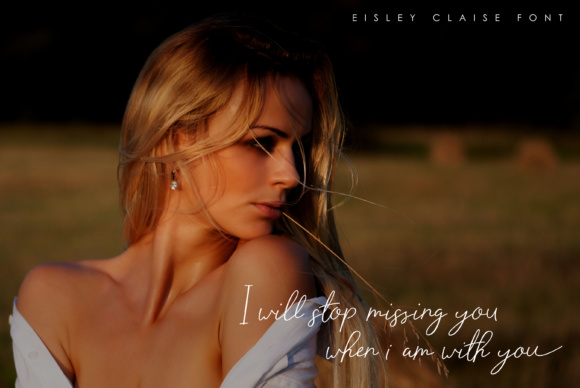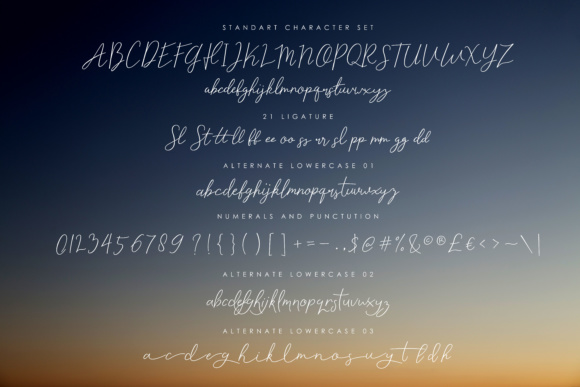
About Eisley Claise Font
Eisley Claise emerges as a beautiful and contemporary signature font, designed to add a touch of sophistication to fashionable editorials and beyond. This font possesses a free-flowing and inherently feminine appeal, making it an ideal choice for titles and headlines where elegance and style take center stage.
The beauty of Eisley Claise lies in its carefully crafted signature style, capturing the essence of a fluid and dynamic handwritten signature. This font’s contemporary design ensures it seamlessly integrates into modern design aesthetics, making it well-suited for fashion-focused editorials, lifestyle magazines, and other projects that demand a chic and refined touch.
The free-flowing nature of Eisley Claise imparts a sense of natural grace and authenticity to your text, creating an effortless yet impactful visual experience. It is versatile, working harmoniously with various design elements to bring out the best in titles and headlines. The font’s ability to convey a feminine appeal adds a layer of elegance, making it particularly suitable for projects targeting a sophisticated and style-conscious audience.
Imagine Eisley Claise gracing the cover of a high-end fashion magazine, its signature style setting the tone for the editorial content within. Envision it enhancing the headlines of a lifestyle blog, effortlessly communicating a sense of modernity and grace. The font’s contemporary charm allows it to adapt to different contexts while maintaining its distinctive and fashionable character.
In summary, Eisley Claise is more than just a font; it’s a signature statement that adds a contemporary and feminine touch to your projects. Its free-flowing appeal and adaptability make it an excellent choice for fashionable editorials, titles, and headlines. With Eisley Claise, you have a design tool that effortlessly combines elegance with modern aesthetics, creating a visual impact that resonates with style-conscious audiences.